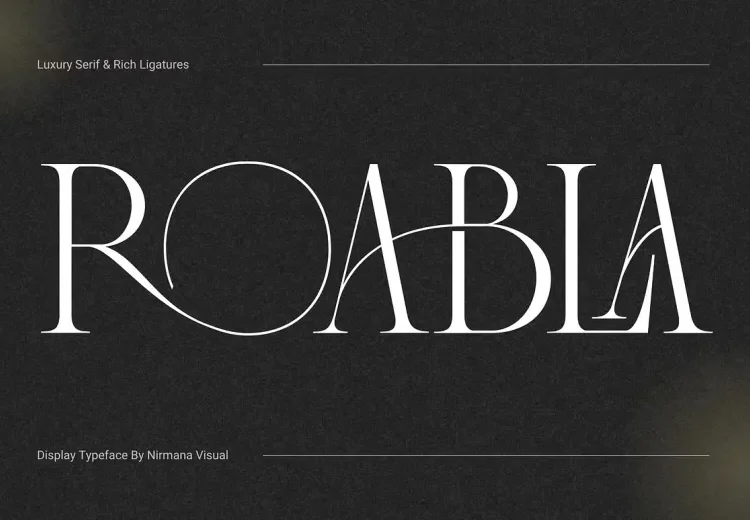
Roabla Font
Roabla is a refined serif font with a classic touch, offering a blend of sophistication and charm. Designed by Nirmana Visual, a renowned graphic design company, Roabla brings a timeless elegance to various design applications. Its clean lines and traditional elements make it a versatile choice for creating distinctive logos, impactful branding materials, engaging social media content, compelling advertisements, and stylish product designs.
Ideal for projects that require both a modern and traditional aesthetic, Roabla enhances any design with its polished appearance. Whether you’re working on high-end branding or detailed social media graphics, this font provides a touch of class and professionalism.